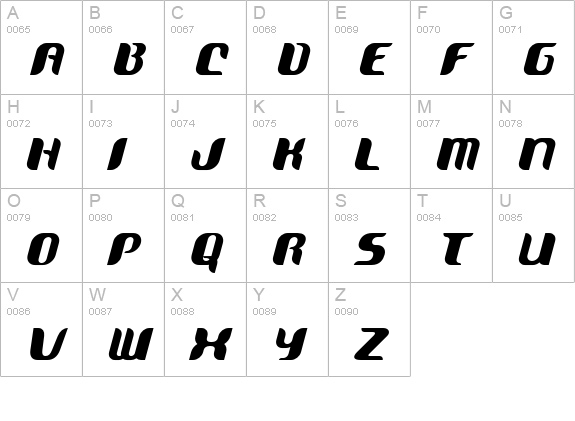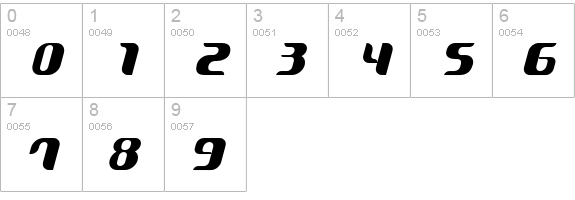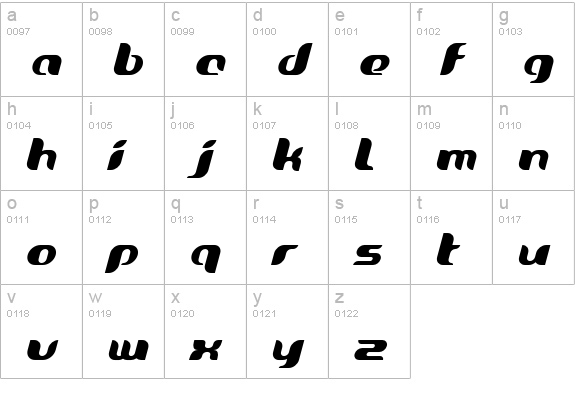
Oriole-Italic is a distinctive, italic variant in the Oriole typeface family \xE2\x80\x94 well suited to design and typography projects.
Introducing Oriole-Italic font, a sleek and sophisticated typeface designed to elevate your projects with a touch of elegance. The graceful curves and unique letterforms of Oriole-Italic exude a sense of modernity and refinement, making it the perfect choice for adding a touch of flair to your designs. Whether you're working on branding materials, invitations, or editorial layouts, Oriole-Italic is sure to make a statement. Best of all, Oriole-Italic is available for free download at FontsMarket.com. Simply head over to the website and add this stunning font to your collection with just a few clicks. Don't miss out on the opportunity to enhance your creative projects with the timeless beauty of Oriole-Italic. Download it today and let your designs shine!